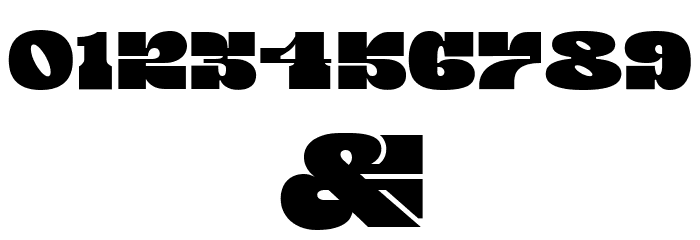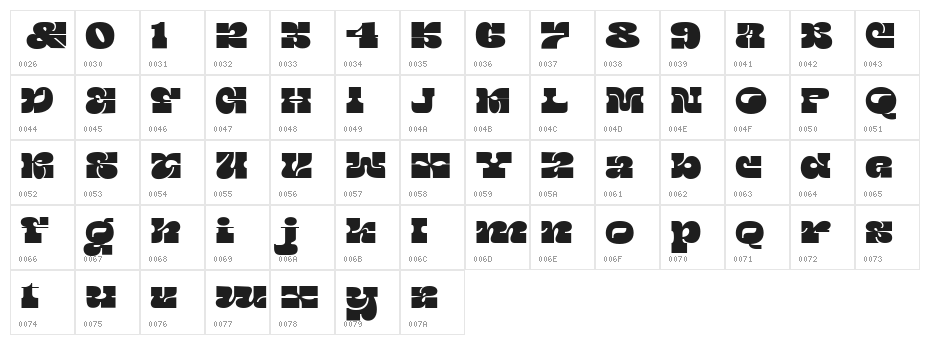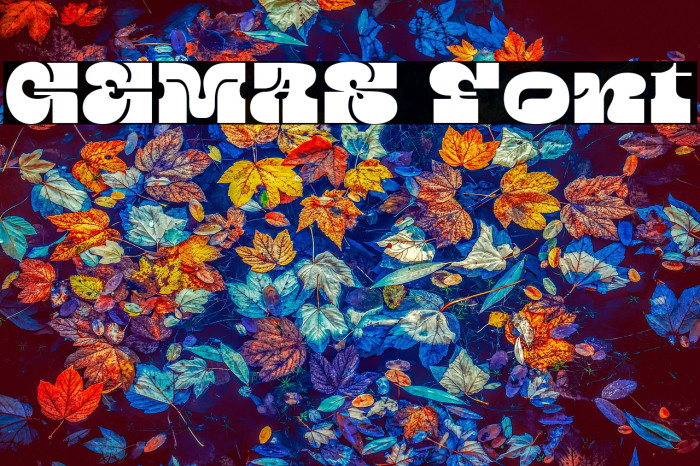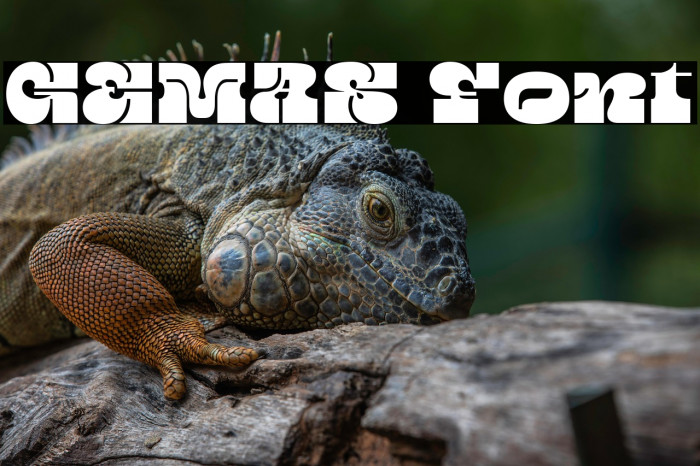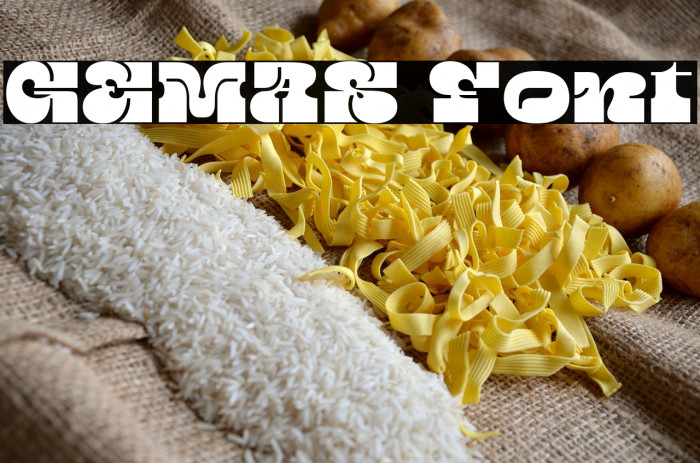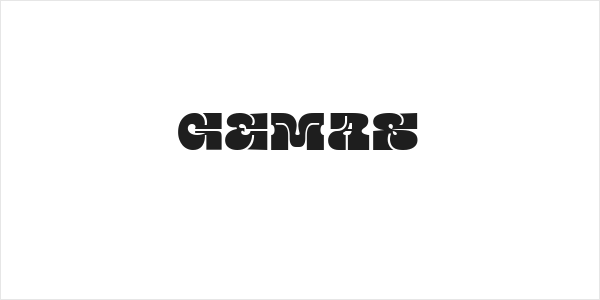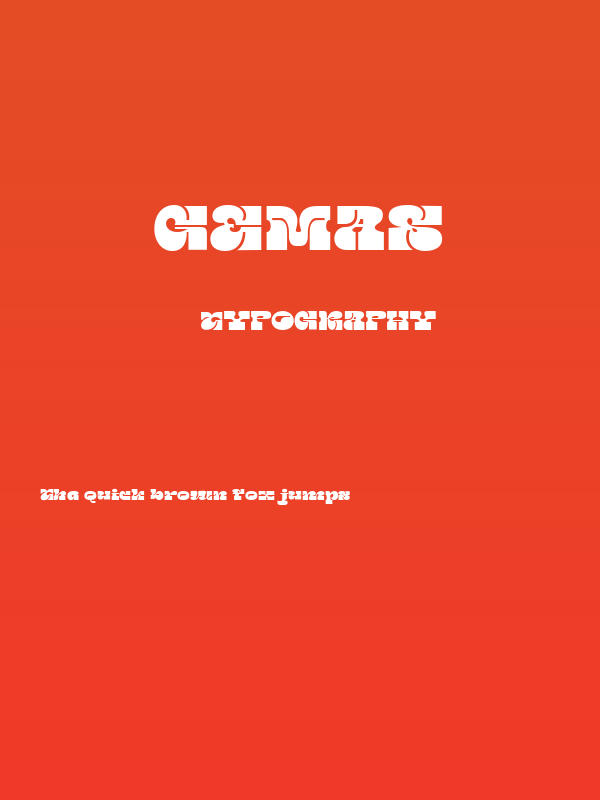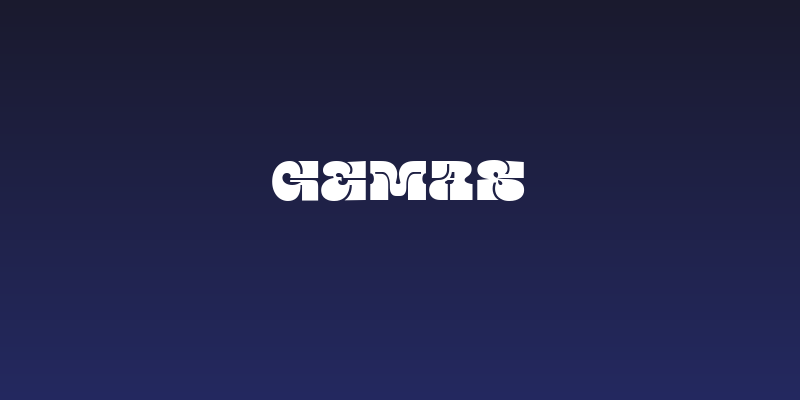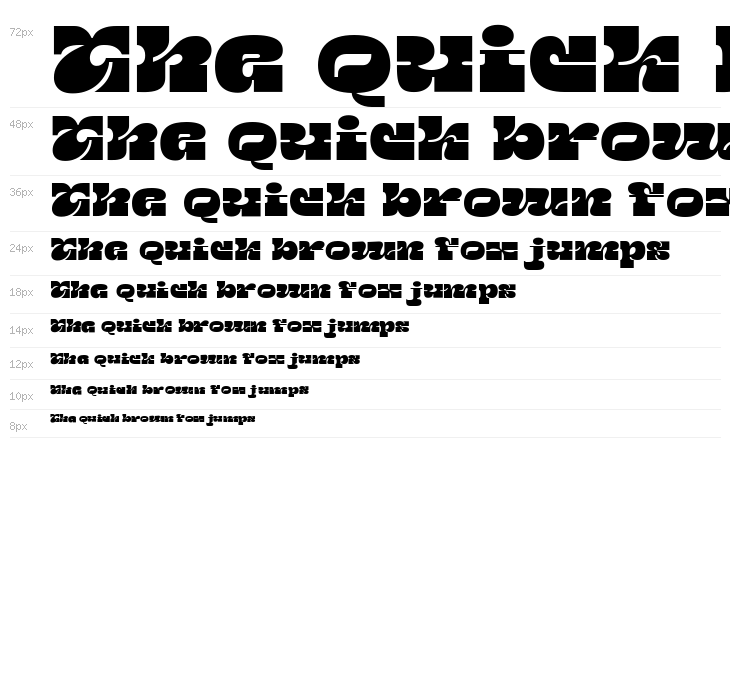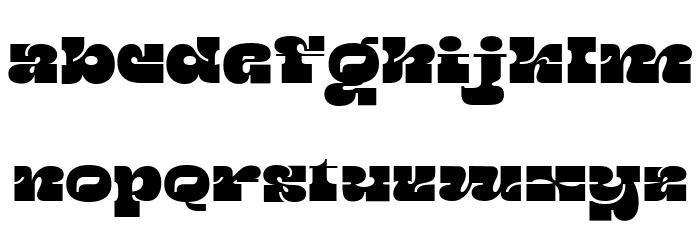
GEMAS Font
GEMAS Description
This font is a bold and striking display typeface characterized by its thick, block-like letterforms. The design features a unique geometric style with sharp angles and curves, creating a sense of movement and energy. The uppercase and lowercase letters maintain a consistent weight, while the numbers and special characters follow the same bold aesthetic. The font's distinct style makes it ideal for attention-grabbing headlines and logos, where a strong visual impact is desired.
| Proposed Projects | Ideal for use in branding, posters, and headlines where a strong visual impact is needed. |